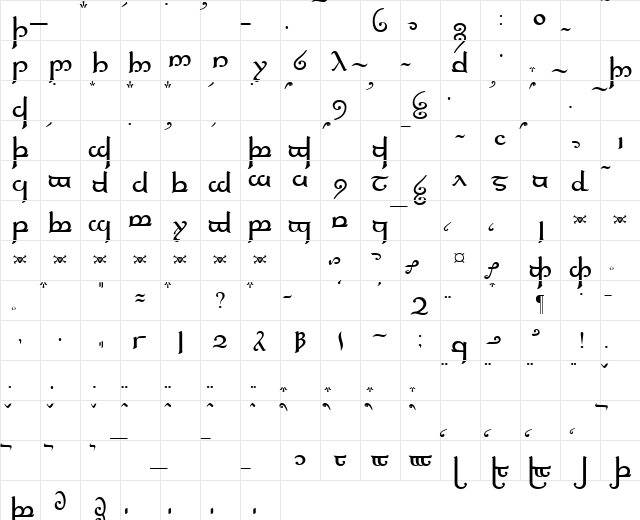
Tengwar Elfica Regular
Design Context for Tengwar Elfica Typeface
Tengwar Elfica takes a measured approach to typography — its balanced proportions and neutral character make it a reliable workhorse for both digital and print work.